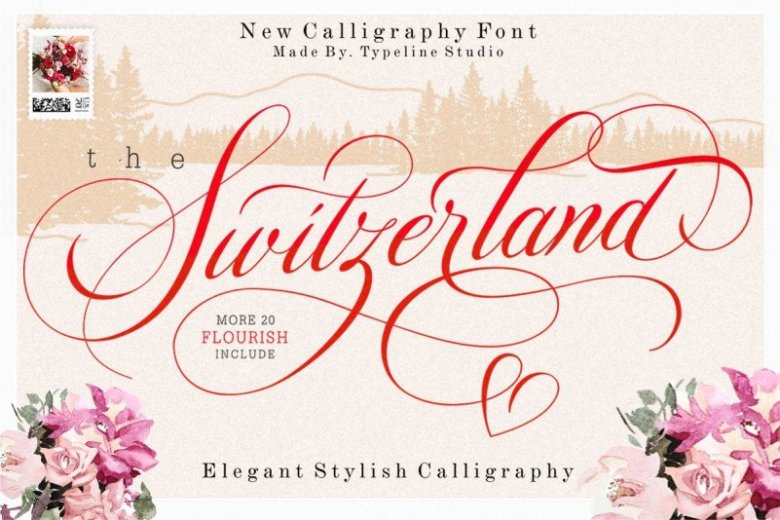
Switzerland Calligraphy Font
Dear All. This is modern calligraphy script font, This font is to complement your design needs in making amazing works. Switzerland Font designed and shared by typeline studio. It’s Stylish calligraphy font, It’s made by hand with copperplate pen and opentype feature with pua encode, It’s calligraphy include alternative, stylistic set, ligature, and swash, Every glyph lowercase have a stylistic style, Switzerland calligraphy is perfect for branding, wedding invites and cards or quote.